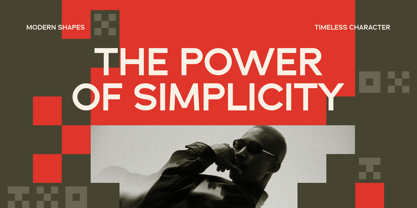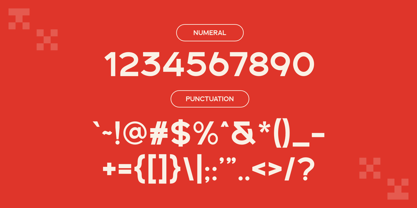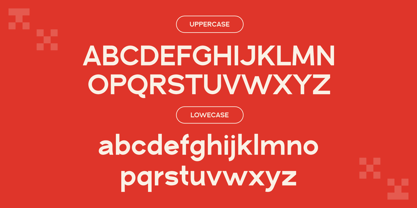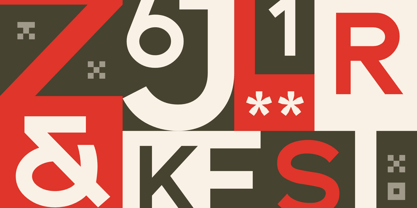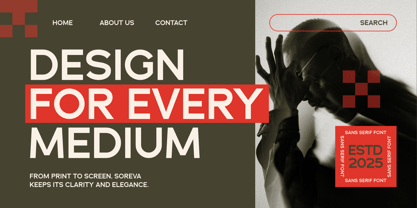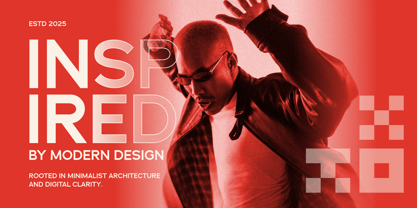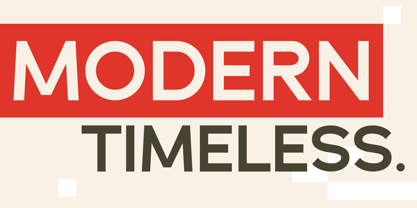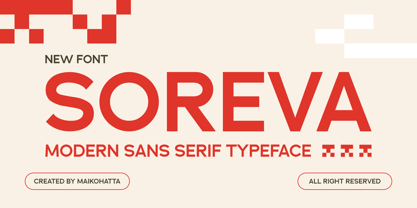
Soreva
von Maikohatta
Die Schriftfamilie Soreva wurde von Gilang Ternadho entworfen und von Maikohatta veröffentlicht. Soreva enthält 1 Stile. Mehr über diese Familie
Soreva - Modern Sans Serif Typeface Soreva is a modern sans serif typeface that embodies clarity, confidence, and versatility. With its clean geometric structure and bold letterforms, this font delivers a striking contemporary aesthetic perfect for branding, headlines, posters, and digital interfaces. The typeface combines minimalist shapes with strong visual presence, creating a balance between modern functionality and expressive design. Its rounded curves and sharp terminals give Soreva a sleek, professional look while maintaining approachability and warmth. Whether used in uppercase for impactful titles or in lighter weights for body text, Soreva ensures legibility and style across all media.
Designer: Gilang Ternadho
Foundry: Maikohatta